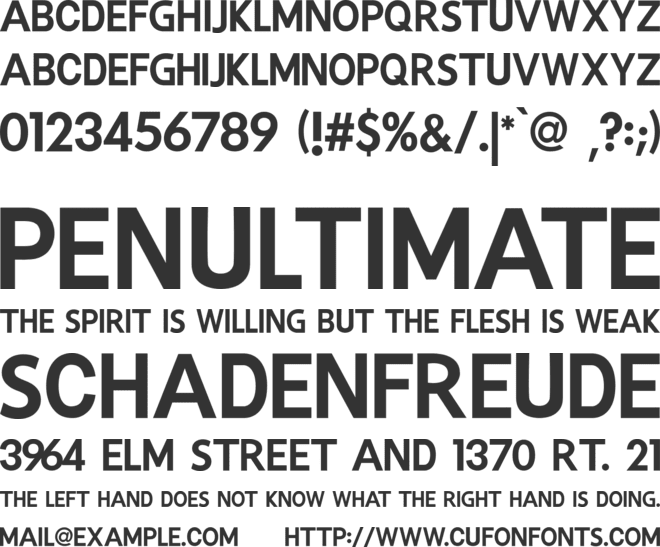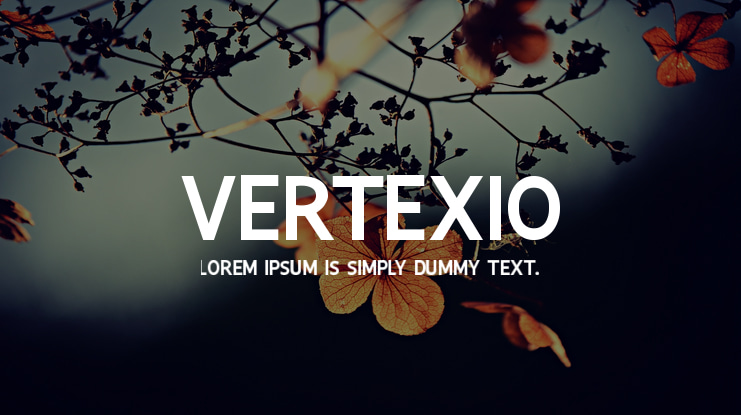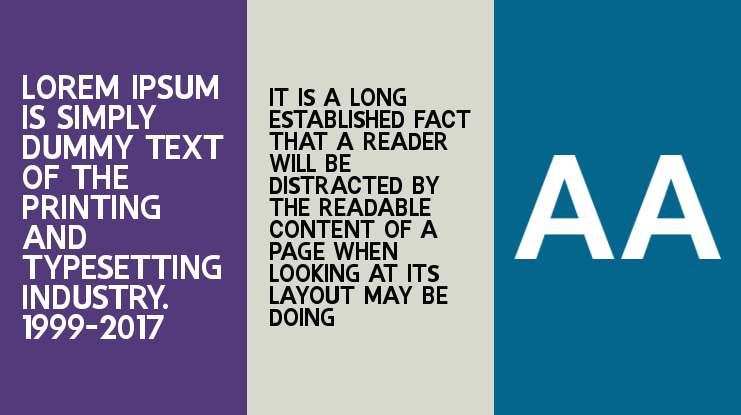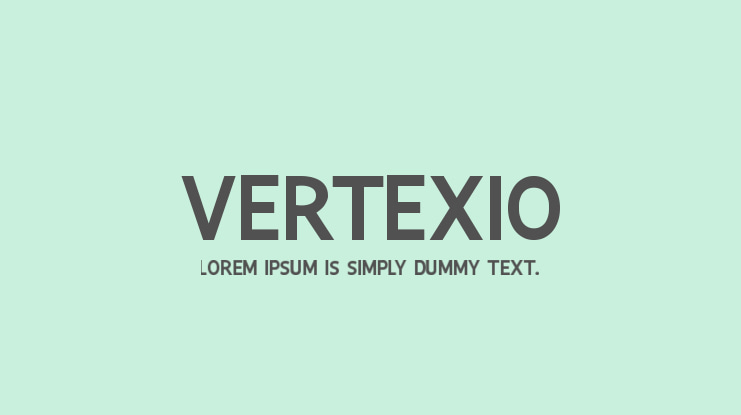
Vertexio Font
‘VERTEXIO’ is intended to be used in various high contrast environments where traditional sans serif fonts fail to optimize asthetics with readability.
A geometric ALL CAPS san serif font inspired by modern swiss typefaces. It is designed for use in poster headings and logotypes.
Since ‘VERTEXIO’ is to be primarily used in headings and captions, certain characteristics are higlighted prominently so as to maintain a balance between elegance at large font size and legibility against a high contrast background at small sizes.